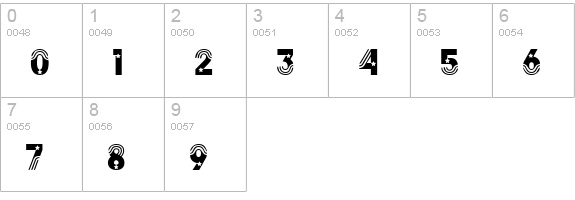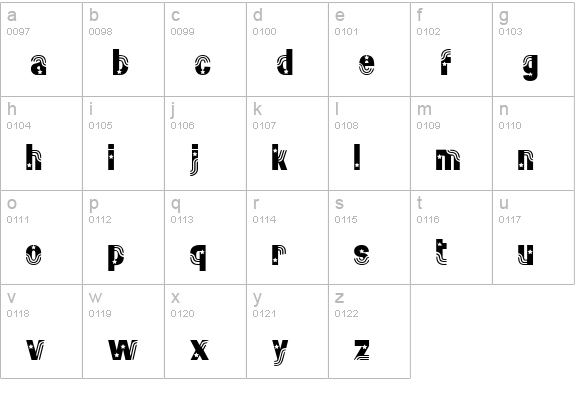
Stars and Stripes font is a mesmerizing typeface that perfectly captures the spirit of freedom and patriotism. With its bold and striking design, this font is sure to make a statement in any design project. The Stars and Stripes font is inspired by the iconic American flag, featuring stars and stripes meticulously incorporated into each letterform. Every character carries a sense of power and pride, making it an ideal choice for projects related to American heritage, military, or any patriotic theme. This font offers a versatile range of uppercase and lowercase letters, numerals, punctuation marks, and special characters. It is designed to be highly legible, ensuring clear communication of your message across various mediums. One of the most remarkable features of Stars and Stripes font is that it is completely free. Yes, you read that right! This incredible font is freely available to download at FontsMarket.com. Whether you are a professional designer or simply someone who loves typography, you can access and utilize this font without any restrictions or charges. By choosing Stars and Stripes font, you not only enhance your designs with its captivating aesthetic but also demonstrate your support for the values that the American flag represents. It is a powerful tool that allows you to infuse your creative projects with a sense of patriotism and pride. So, why wait? Download the Stars and Stripes font now from FontsMarket.com and let your designs soar to new heights as you embrace the essence of freedom and honor.